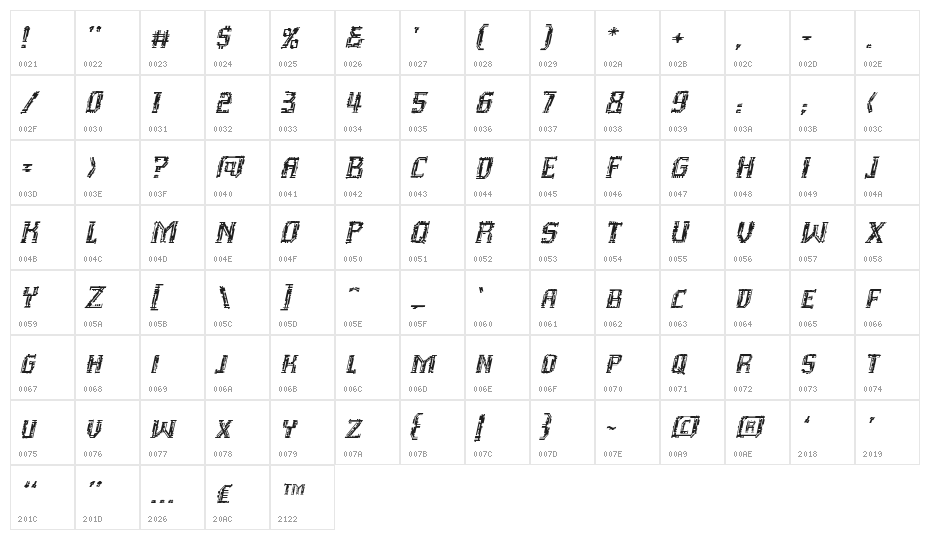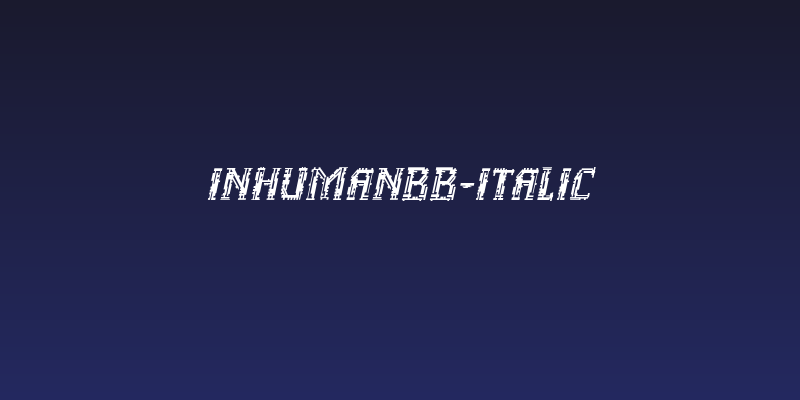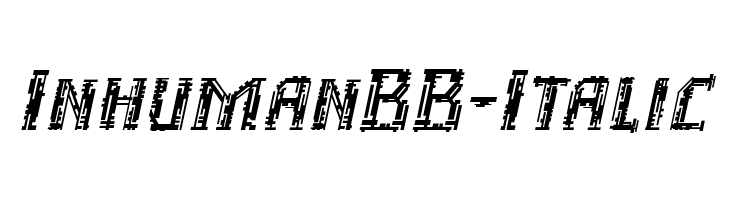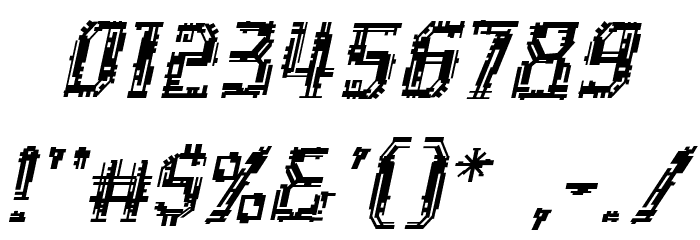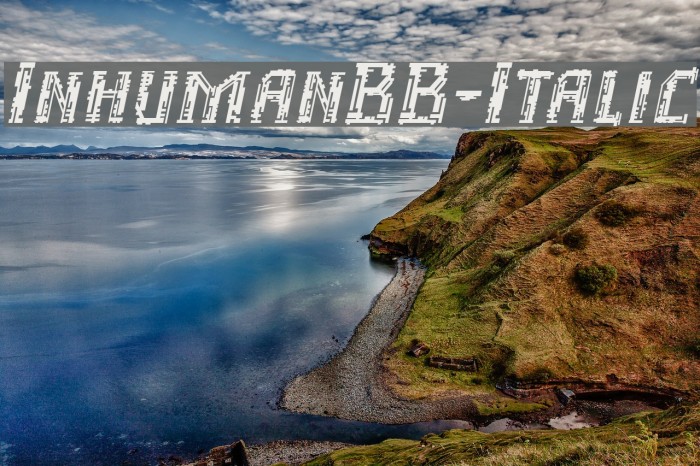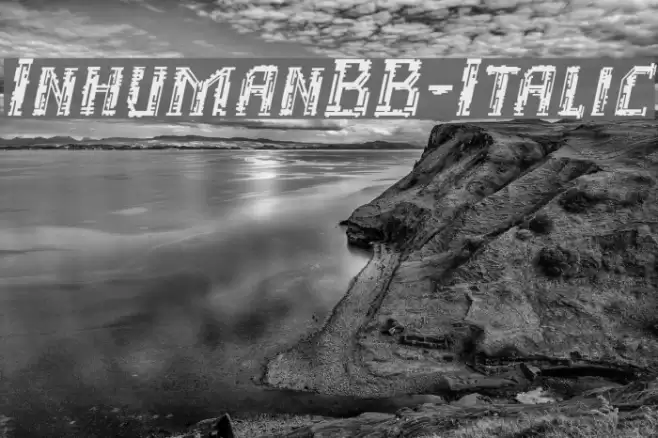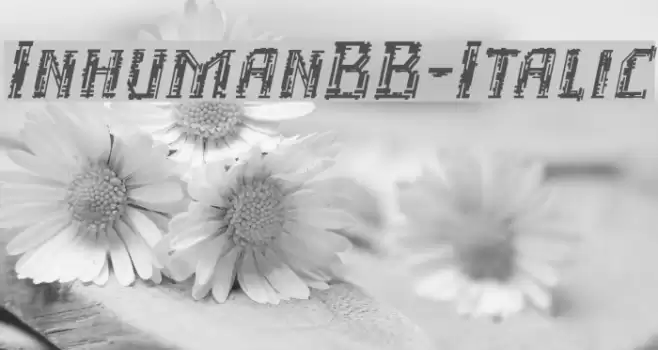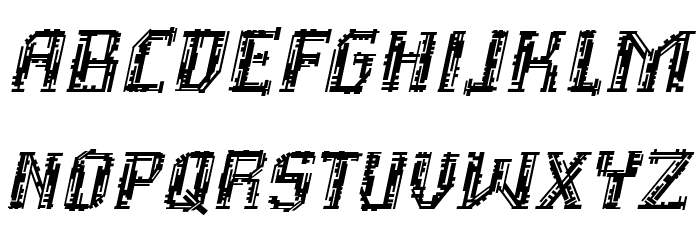
InhumanBB-Italic Font
InhumanBB-Italic Description
This font features a bold, italicized style with a distinctive, jagged appearance that gives it a digital, glitch-like effect. The characters are angular and sharp, with a consistent slant that adds dynamism and movement. The uppercase and lowercase letters maintain a uniform height, creating a cohesive look. Numbers and special characters are designed with the same edgy aesthetic, making them stand out. This font is ideal for projects that require a modern, tech-inspired look, such as video game titles, digital artwork, or futuristic branding.
| Proposed Projects | Ideal for video game titles, digital artwork, and futuristic branding. |